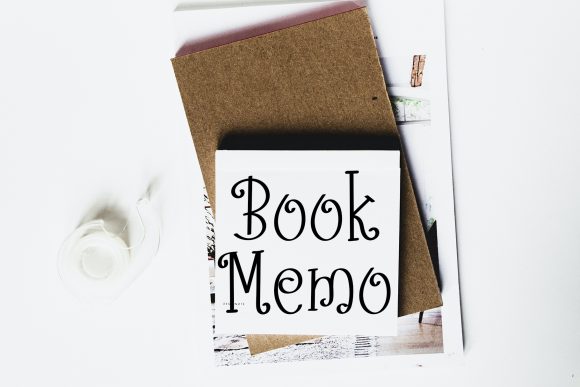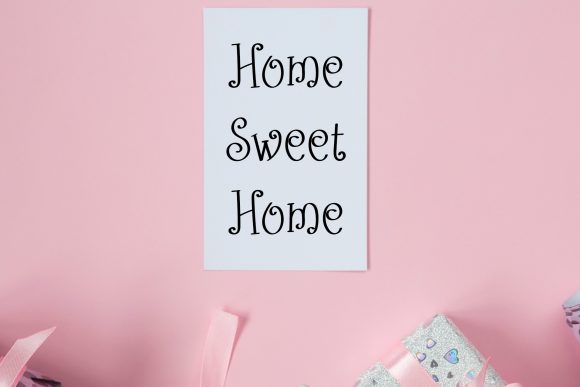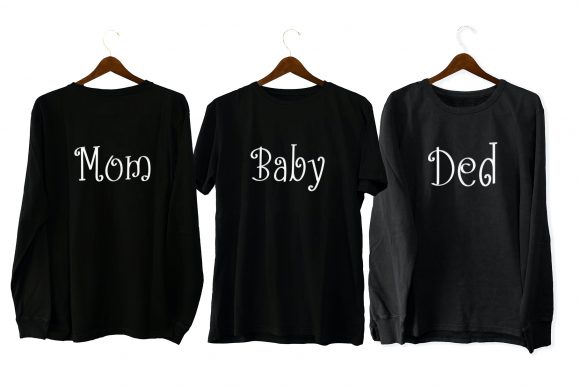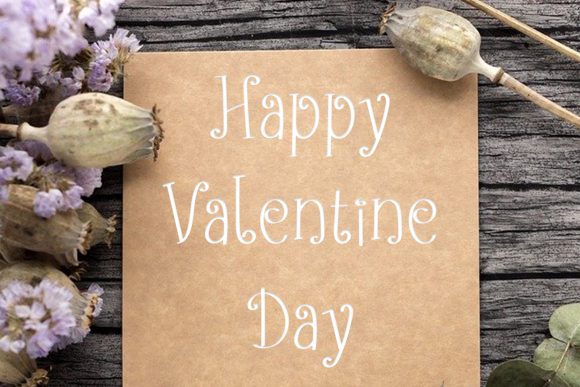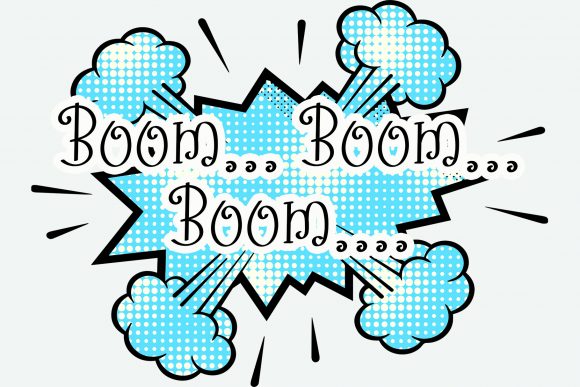
Cartoon Font
About Cartoon Font
Cartoon is a dainty, sweet and whimsical handwritten font. Suitable to a wide variety of designs due to its neat and simple style, Cartoon has the potential to become your favorite go-to font, no matter the occasion!